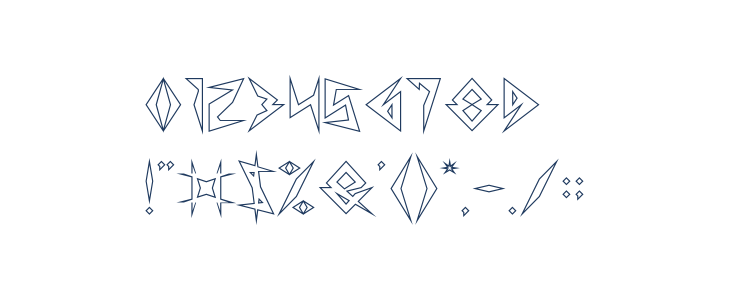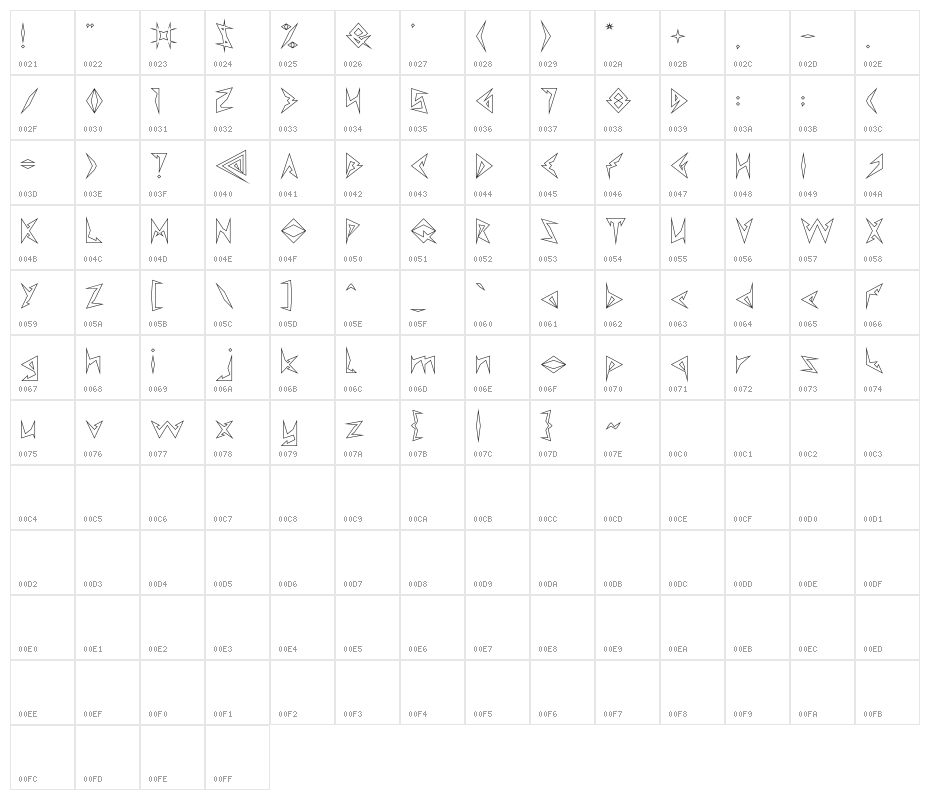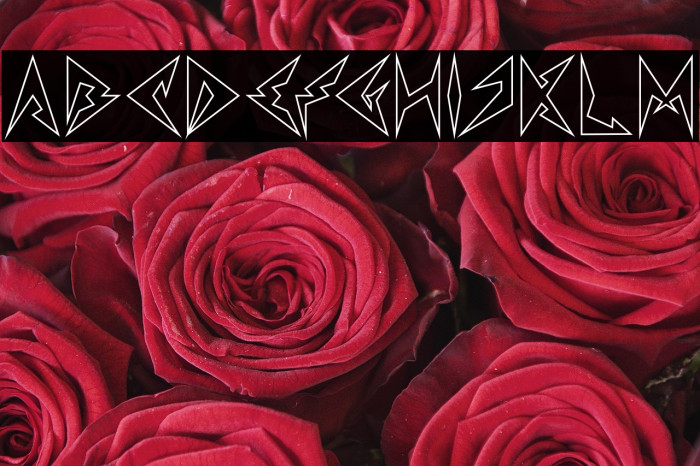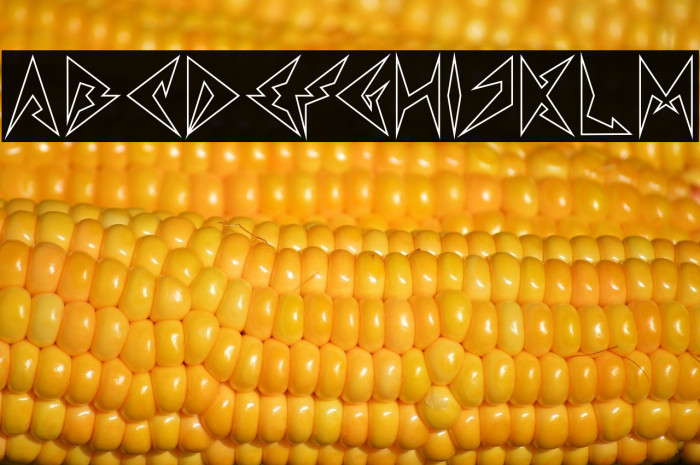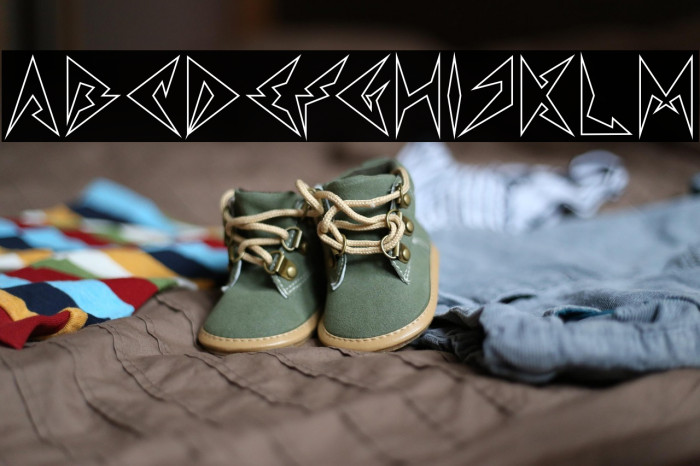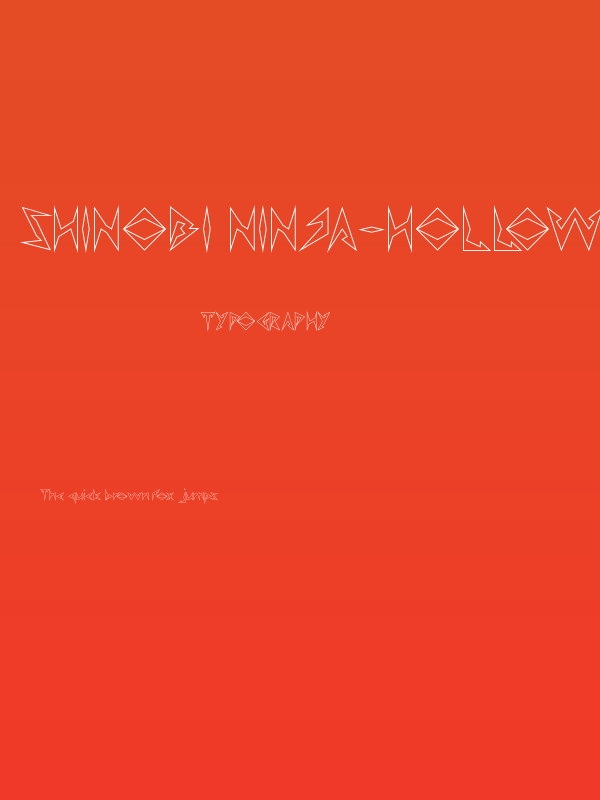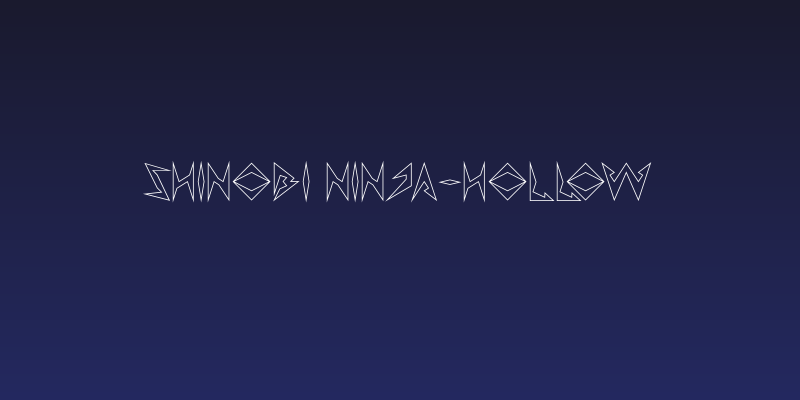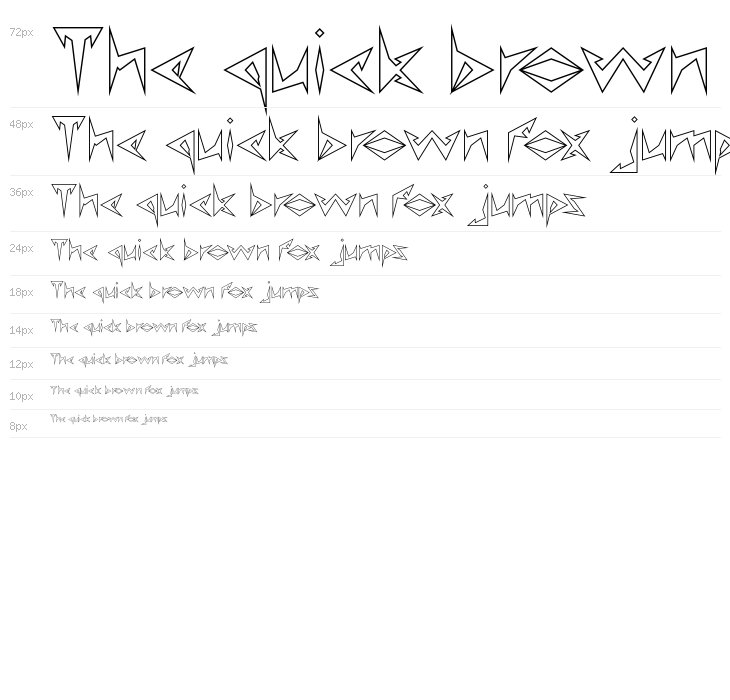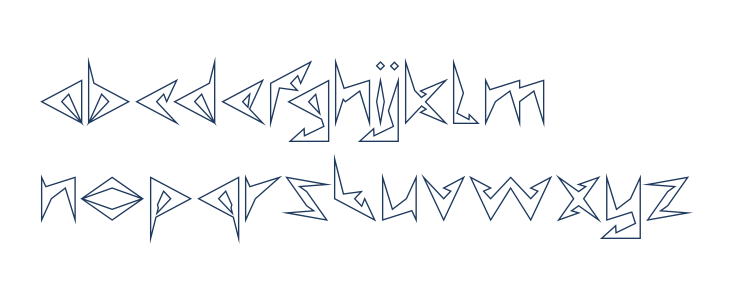
Shinobi Ninja-Hollow Font
Shinobi Ninja-Hollow Description
This font features a bold and angular design with sharp, geometric shapes that create a dynamic and edgy appearance. Each character is constructed with a series of pointed lines and angles, giving it a futuristic and aggressive look. The uppercase and lowercase letters maintain a consistent style, with the lowercase being slightly more compact. Numbers and special characters follow the same angular theme, ensuring uniformity across the font. The hollow design adds a unique touch, making it stand out in any design project.
| Overall Style | Futuristic, Edgy |
| Proposed Projects | Ideal for video game titles, movie posters, or any project requiring a bold, futuristic aesthetic. |